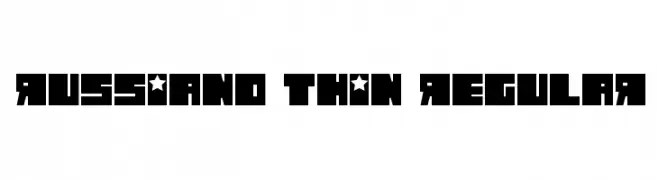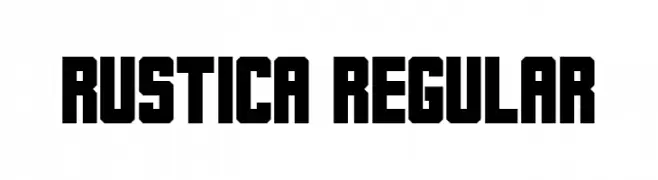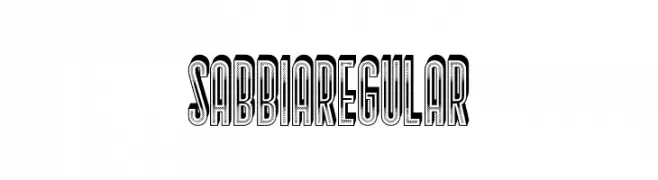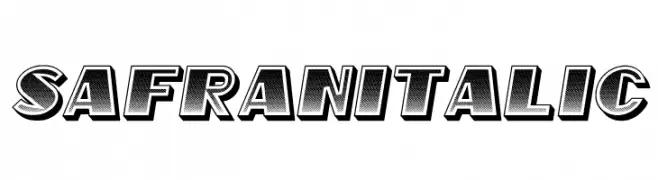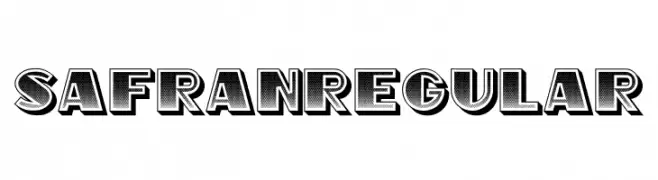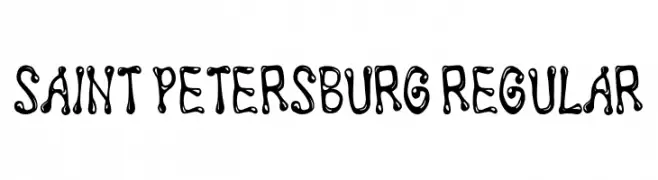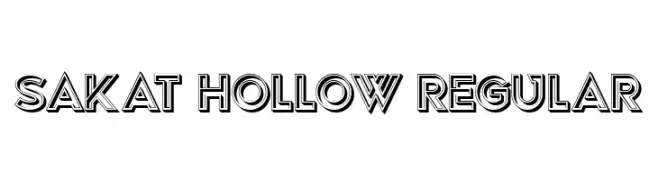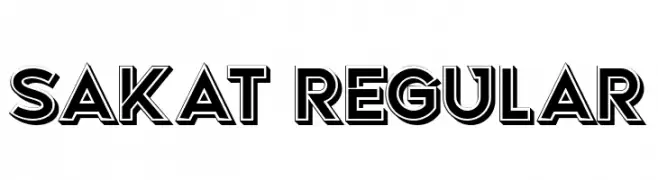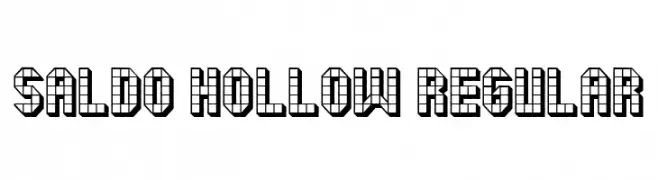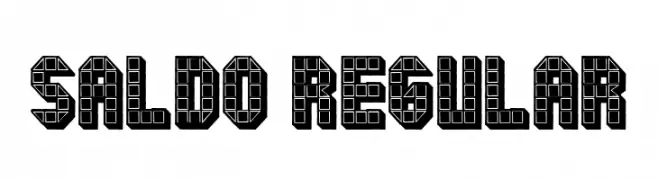
( Vladimir Nikolic - www.coroflot.com/vladimirnikolic )
A bold, geometric font with a blocky, industrial design.
A bold, geometric font with a strong, modern design.
A bold, decorative font with a unique striped pattern and narrow, structured characters.
A bold, italicized font with a 3D effect and dotted texture.
A bold, decorative font with a 3D shadow effect and dotted texture.
A playful, fluid, and bold decorative font with a modern twist.
A bold, hollow, geometric font with a modern, architectural style.
A bold, geometric font with outlined characters and sharp edges.
A geometric, hollow font with a grid-like, three-dimensional design.
A bold, geometric font with a grid-like, three-dimensional design.
A bold, 3D font with a playful, bubble-like appearance and strong contrast.
A bold, geometric font with intricate patterns and strong outlines.
A modern, geometric font with bold outlines and a dotted interior pattern.
A decorative and festive font with bold, ornate characters perfect for holiday themes.
A bold, decorative font with intricate patterns and thick outlines.
A bold, 3D font with geometric structure and shadow effects.
A bold, decorative font with a 3D effect and diagonal lines.
A bold, angular font with a gothic, dramatic style.
A bold, geometric font with a futuristic, digital style.
A bold, geometric font with a futuristic, 3D layered design.
A bold, futuristic font with a sliced, three-dimensional appearance.
Bold, geometric font with a modern, condensed style and unique cut-out details.
A bold, geometric font with unique cut-out details for a modern look.
A bold, hollow, 3D-effect font with sharp angles and geometric structure.
A bold, italic, 3D font with a dotted texture and thick outlines.
A bold, decorative font with a 3D effect and intricate patterns.
A bold, geometric font with a futuristic and edgy design.
A bold, three-dimensional font with a vintage, industrial feel and dotted interior.
A bold, three-dimensional font with a shadow effect and geometric style.
A collection of stylized chess piece symbols for digital and print use.
A set of chess piece symbols with bold outlines for clarity.
( Vladimir Nikolic - www.coroflot.com/vladimirnikolic )
A bold, italic font with a striped, dynamic design.
A bold, geometric font with a three-dimensional effect and high contrast.
A bold, playful font with a mechanical, decorative style.